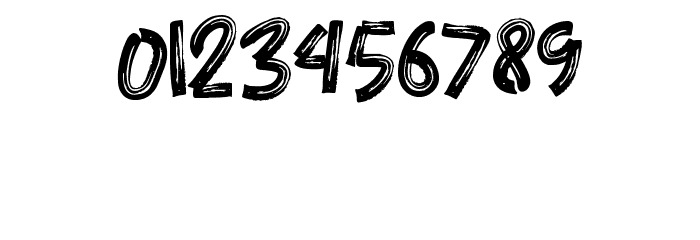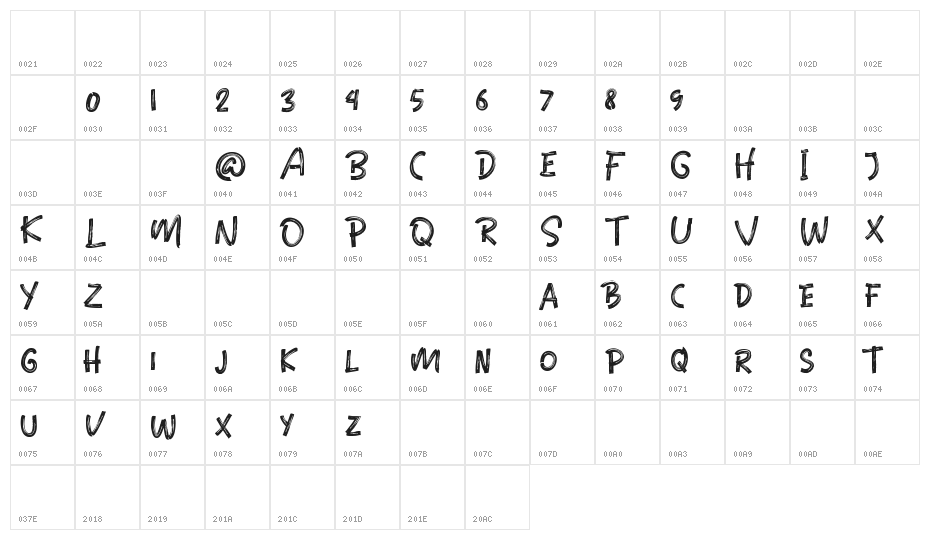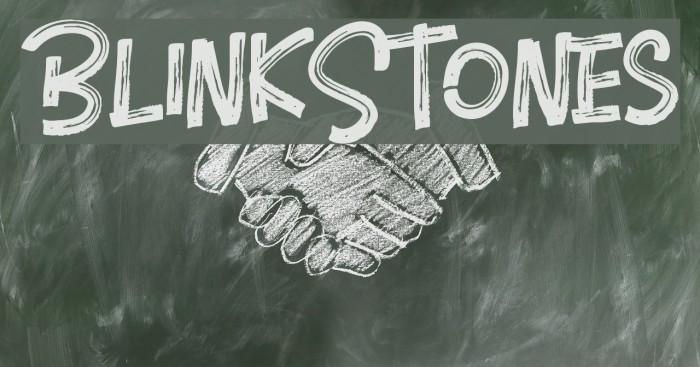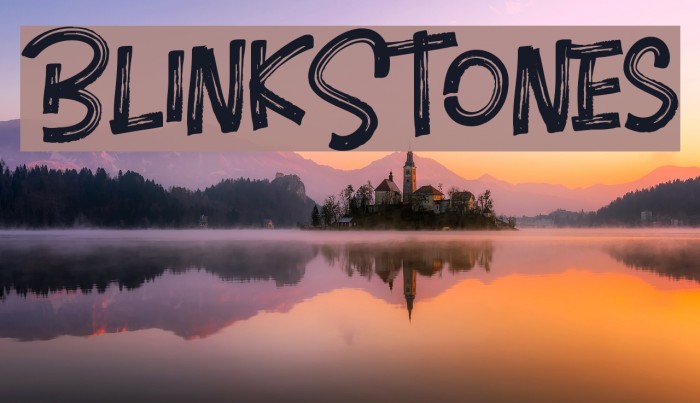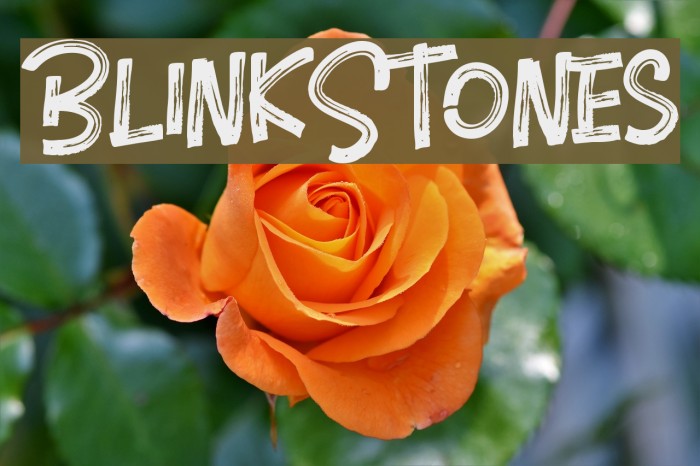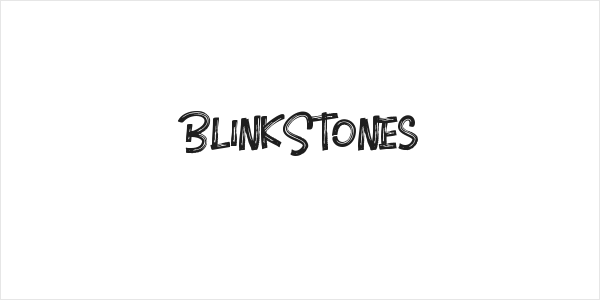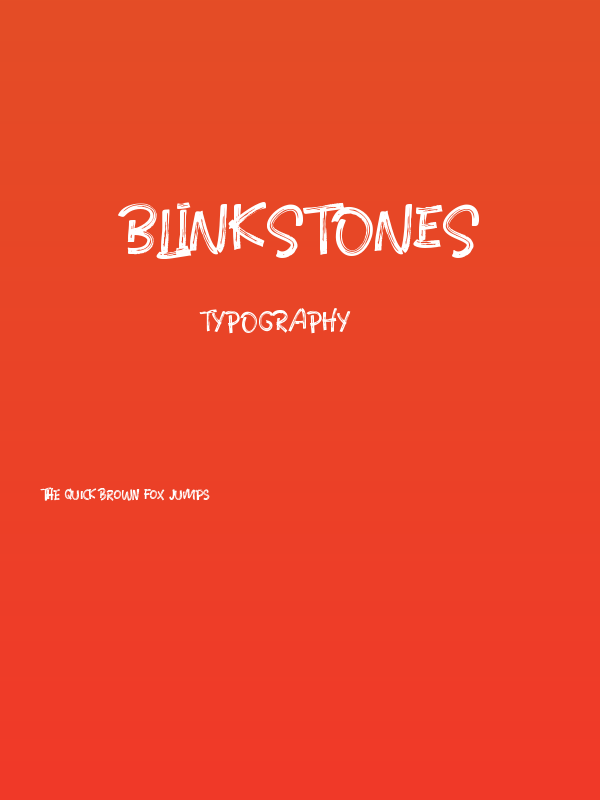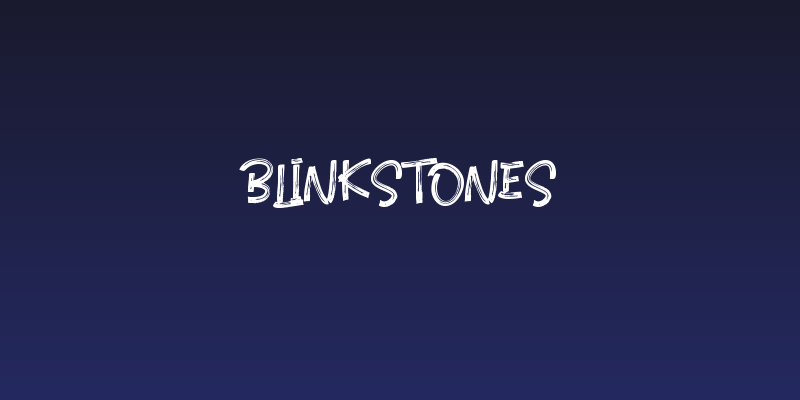
BlinkStones Font
BlinkStones Description
This font features a bold, hand-drawn style with a playful and energetic vibe. The letters are characterized by uneven strokes and a slightly rough texture, giving it a dynamic and informal appearance. The uppercase and lowercase letters maintain a consistent style, with a slight slant that adds to the casual feel. The numbers and special characters follow the same design principles, ensuring a cohesive look across all elements. This font is ideal for projects that require a fun and lively touch, such as posters, children's books, or creative branding.
| Proposed Projects | Ideal for posters, children's books, creative branding, and playful designs. |